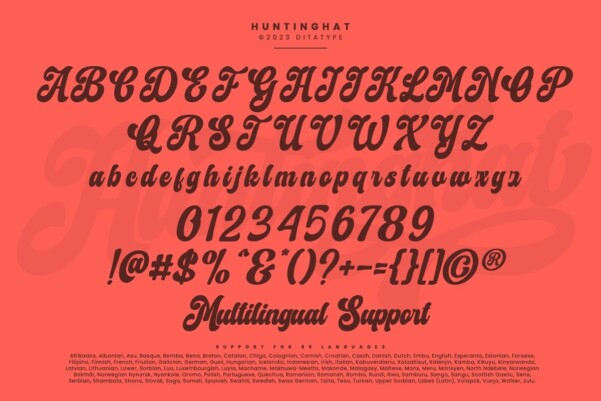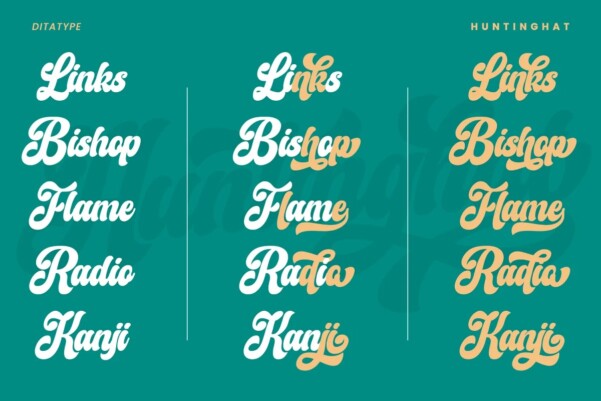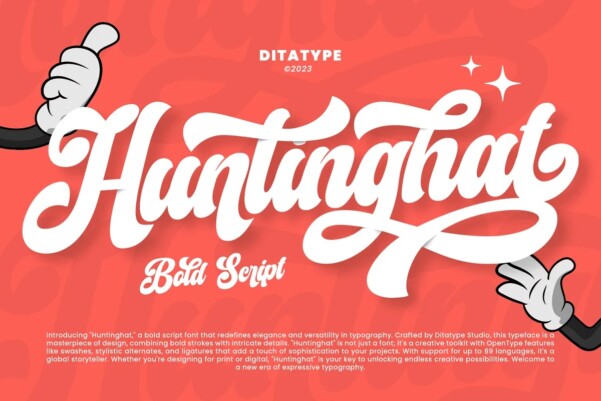
Huntinghat Font
Huntinghat Font, a captivating script font that exudes boldness and character. Huntinghat stands out with its bold and robust appearance. The fairly thick weight of the font gives it a sense of confidence and assertiveness, making it perfect for command attention. What sets Huntinghat apart is its delightful swinging end details on select letters. These playful, flowing elements add a touch of whimsy and charm to the font. In addition, enjoy the features here.